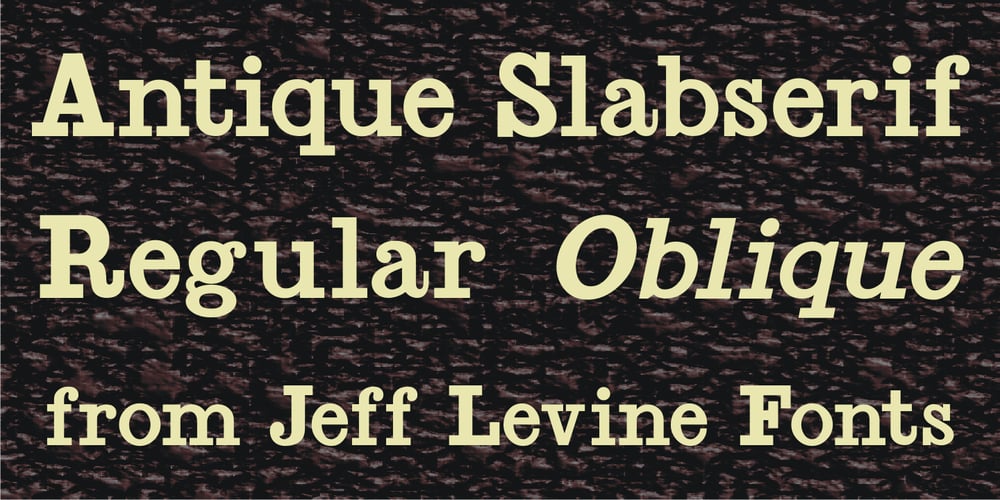
Antique Slabserif JNL Font Family was designed by Jeff Levine and published by Jeff Levine. Antique Slabserif JNL contains 2 styles and family package options. Antique Slabserif JNL is a reinterpretation of Monotype’s Modern Antique 26, released in 1909. The name of the typeface is an oxymoron because Modern conflicts with Antique. Despite many critics of the “mechanical” look of the font’s design, it has developed a bit of charm with age and the passing of time. Available in both regular and oblique versions, Antique Slabserif JNL can be used as both a text and headline font.